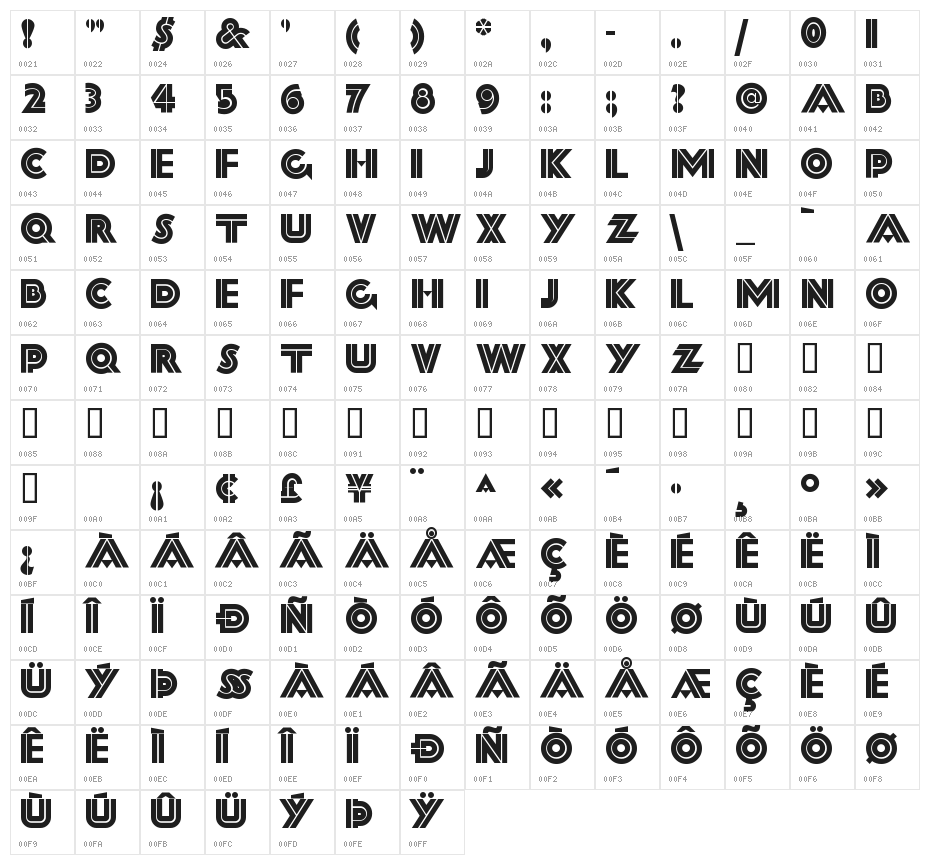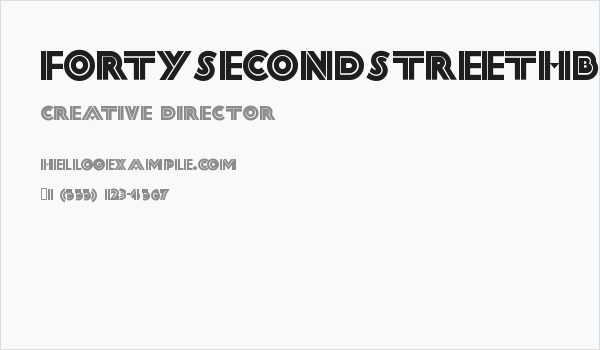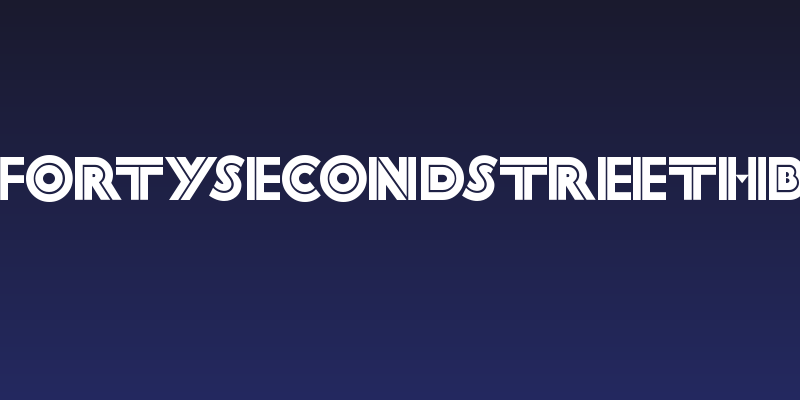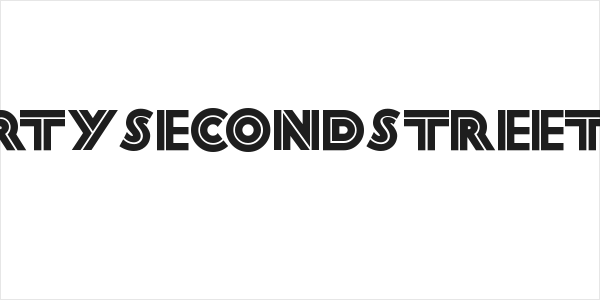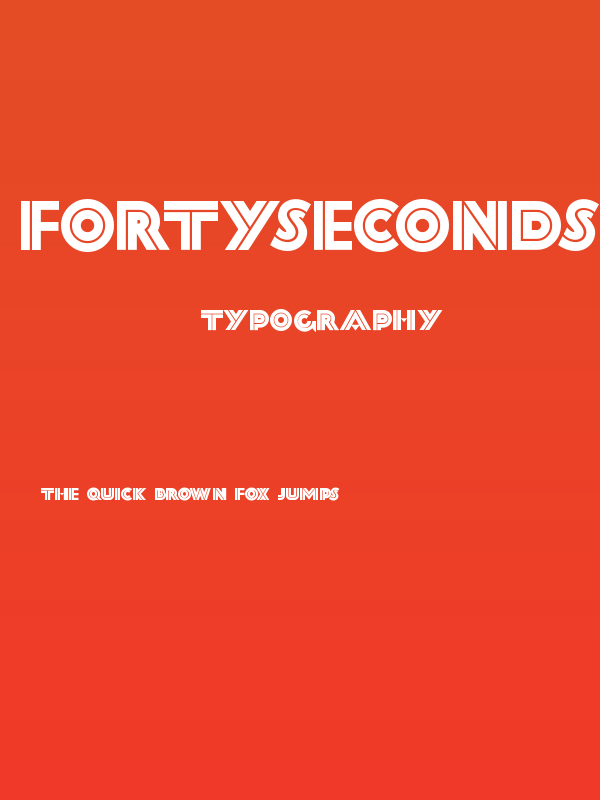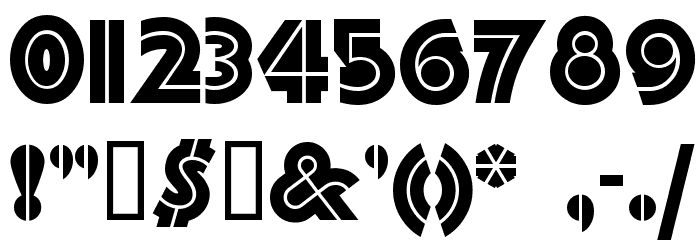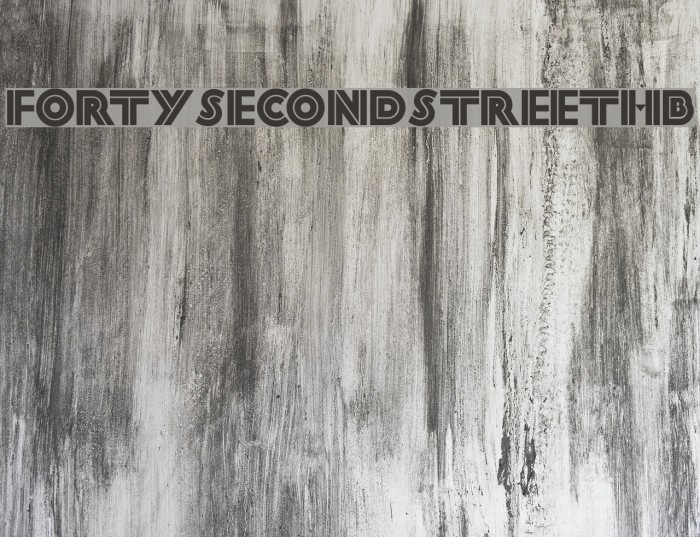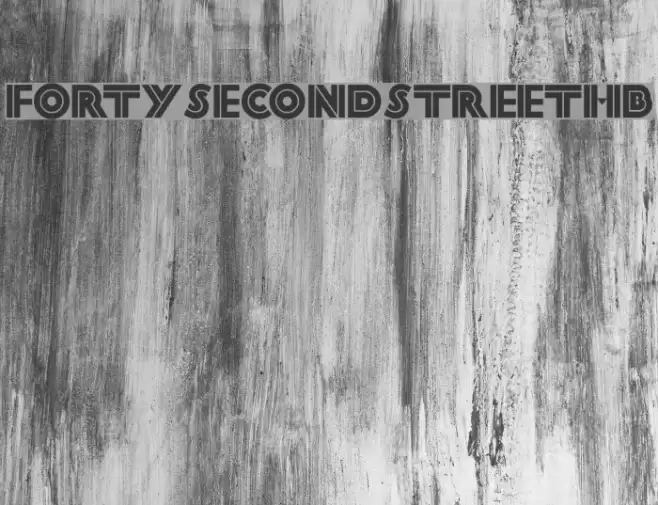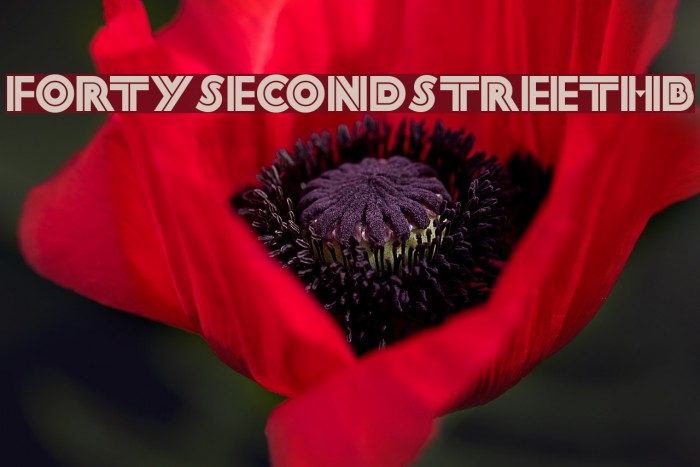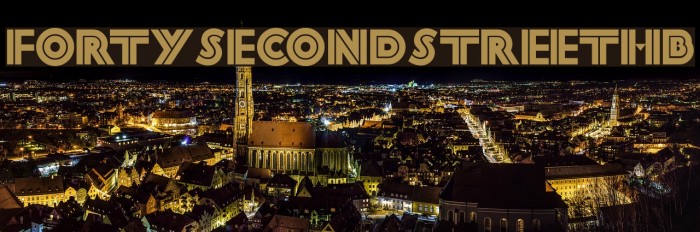
FortySecondStreetHB Font
FortySecondStreetHB Description
This font features a bold, geometric design with strong, angular lines and a distinct Art Deco influence. The characters are constructed with a combination of thick and thin strokes, creating a high contrast that adds to its striking appearance. The uppercase letters are particularly notable for their use of sharp angles and straight lines, while the lowercase letters maintain a consistent style that complements the uppercase set. The numerals and special characters follow the same design principles, ensuring a cohesive look across all glyphs. This font's unique style makes it ideal for projects that require a bold and memorable visual impact.
| Overall Style | Art Deco, Modern |
| Proposed Projects | Ideal for branding, posters, signage, and any project requiring a bold, memorable typeface. |